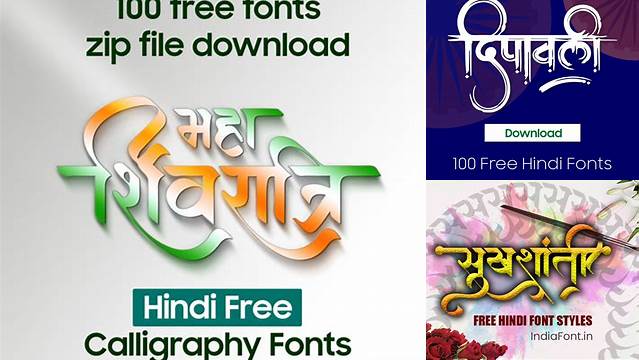
Are you looking to create stunning visuals with beautiful Hindi fonts? You've come to the right place! In this comprehensive guide, we'll dive into the world of Hindi font style online makers, exploring their features, benefits, and how you can use them to create eye-catching designs. Plus, we'll cover the best options for free downloads so you can get started right away. Let's jump in, guys!
Why Use a Hindi Font Style Online Maker?
In today's digital age, visual content reigns supreme. Whether you're designing social media graphics, website banners, or marketing materials, the right font can make all the difference. When it comes to Hindi content, using a unique and stylish font can help you capture your audience's attention and convey your message effectively. A Hindi font style online maker offers a convenient and user-friendly way to experiment with different fonts, sizes, colors, and effects without the need for expensive software or design expertise.
Key Features to Look for in a Hindi Font Style Online Maker
When choosing a Hindi font style online maker, it's essential to consider several key features to ensure you're getting the most out of the tool. Here’s what to look for:
- Font Variety: The more fonts available, the more creative you can be. Look for a maker that offers a wide range of Hindi fonts, from traditional to modern styles.
A broad selection of fonts is crucial because it allows you to tailor your designs to match the specific tone and style of your message. Traditional fonts are perfect for formal and cultural contexts, adding an element of authenticity and respect. On the other hand, modern fonts can inject a contemporary and stylish feel into your designs, making them suitable for a younger audience or more innovative projects. The availability of diverse font styles ensures that you can find the perfect typeface to convey your message effectively, regardless of the content or target audience. Moreover, having access to various font categories—such as serif, sans-serif, script, and decorative fonts—enables you to create visual hierarchy and emphasis within your designs, enhancing readability and overall aesthetic appeal. This variety also encourages experimentation and creativity, allowing you to explore different typographic combinations and discover unique styles that reflect your personal or brand identity. A comprehensive font library is, therefore, a cornerstone of any high-quality Hindi font style online maker, empowering users to produce visually compelling and engaging content.
- Customization Options: The ability to adjust font size, color, spacing, and add effects like shadows or outlines is crucial for creating unique designs.
Customization options are paramount because they empower you to fine-tune every aspect of your text, ensuring that it aligns perfectly with your overall design and messaging. The ability to adjust font size is essential for creating visual hierarchy, where larger fonts can highlight important headings and smaller fonts can present supporting information. Modifying font color allows you to match your text to your brand's color palette or to create contrast and draw attention to specific elements within your design. Spacing adjustments, including letter spacing and line height, contribute significantly to readability and can enhance the overall aesthetic appeal of your text. Furthermore, the addition of effects such as shadows, outlines, and gradients can add depth and dimension to your text, making it stand out and capture the viewer's eye. These effects can transform a simple text element into a visually striking component of your design, adding a professional touch and elevating the overall impact. In essence, comprehensive customization options provide the flexibility needed to create distinctive and memorable designs, allowing you to express your creativity and achieve your desired visual outcome. They enable you to transform basic text into a powerful design element that effectively communicates your message and resonates with your audience.
- Ease of Use: A user-friendly interface is essential, especially if you're not a design expert. Look for makers with drag-and-drop functionality and clear instructions.
A user-friendly interface is a non-negotiable feature because it directly impacts your ability to create designs efficiently and effectively. A well-designed interface will have intuitive navigation, clear labeling, and a logical layout, ensuring that you can quickly find and use the tools and features you need. Drag-and-drop functionality is particularly beneficial, as it simplifies the design process by allowing you to move elements around the canvas with ease. This feature eliminates the need for complex coding or technical skills, making the design process accessible to users of all levels of experience. Clear instructions and tooltips are also crucial, especially for beginners, as they provide guidance and support throughout the design process. A user-friendly interface reduces the learning curve, allowing you to focus on your creativity rather than struggling with the software. It ensures that you can bring your design ideas to life smoothly and without frustration. By prioritizing ease of use, online makers can empower a wider audience to create visually compelling content, regardless of their technical expertise. This accessibility fosters creativity and innovation, making design tools more inclusive and user-centric. In short, a user-friendly interface is a key determinant of a successful online maker, enabling you to work efficiently and produce high-quality designs with minimal effort.
- Download Options: Make sure the maker allows you to download your designs in various formats (e.g., JPG, PNG, PDF) for different uses.
Having versatile download options is crucial because it ensures that you can use your designs across a wide range of platforms and applications. Different formats are optimized for different purposes, and the ability to export your designs in multiple formats gives you the flexibility to meet various requirements. For instance, JPG is a widely used format for images, ideal for web use due to its small file size and compatibility with most browsers and social media platforms. PNG, on the other hand, is preferred for graphics with transparent backgrounds, making it perfect for logos and layered designs. PDF is the standard format for documents and print materials, ensuring that your design retains its original quality and formatting when printed. The availability of these options allows you to tailor your output to the specific needs of your project, whether it's for online display, social media sharing, or professional printing. Furthermore, the ability to download designs in high resolution is essential for ensuring that your visuals look crisp and clear, regardless of the viewing medium. By providing a range of download options, online makers empower you to seamlessly integrate your designs into any context, enhancing the overall impact and effectiveness of your visual communication.
- Free Download Availability: Many makers offer free plans with basic features. Look for options that provide a good balance between functionality and cost.